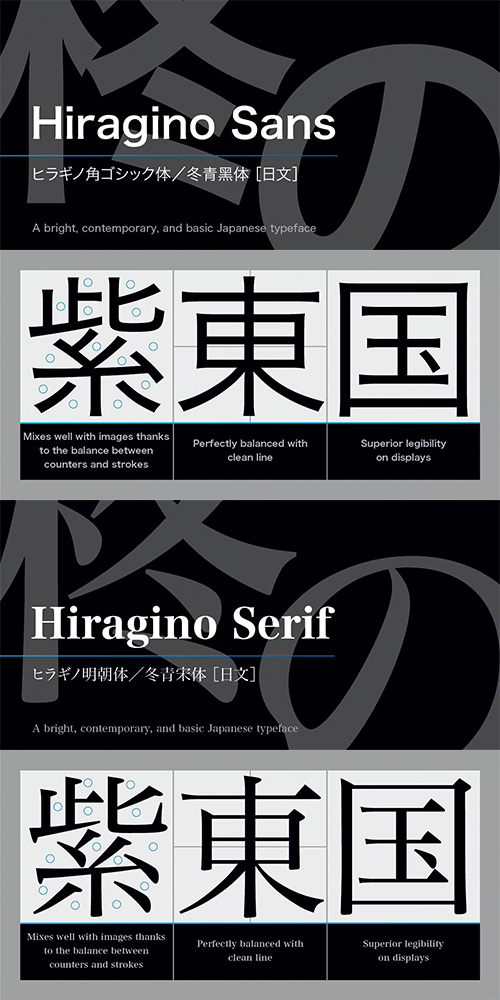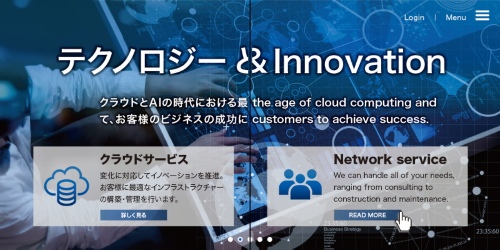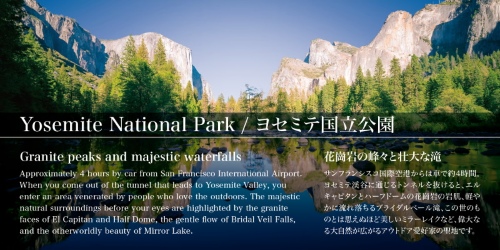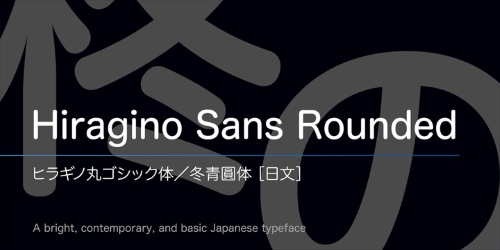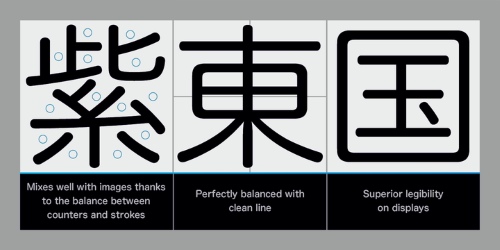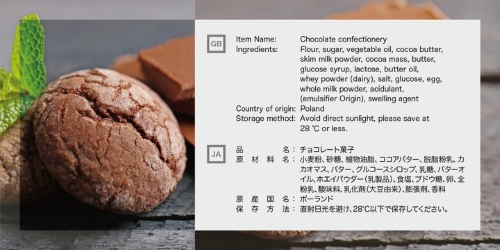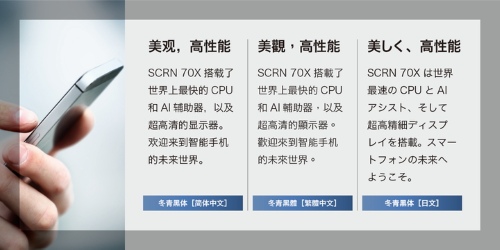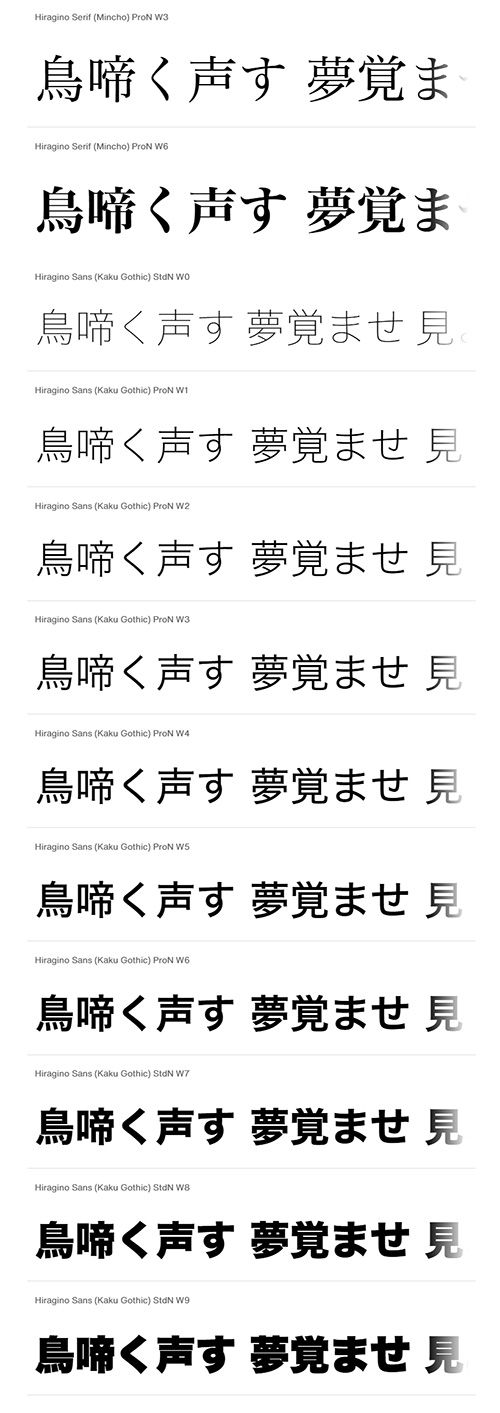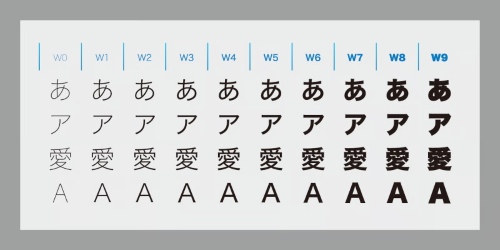
Hiragino Family Collection
Sans & Serif 17 Styles
- Mindful that Hiragino Sans (Kaku Gothic) would be used in conjunction with Hiragino Serif (Mincho), SCREEN developed a font that anticipated today’s world where most people do their reading on displays and yet still has an orthodox letterform that does not blur when printed on paper. In short, our goal with this font was to create a new concept that responds to the demands of today’s times. This font offers weight variations from W0 to W9 and is extremely versatile. This makes it well-suited to all visual expression media including paper, metallic textures, resins, cloth, television, movies, broadcasting, websites, and electronic displays. One of the design’s strongpoints is that it elides serif on the right side of each stroke, thus delivering more spacious counters and a comfortable appearance. Thanks to this, the typeface not only delivers a contemporary, lively impression same as Latin sans serif typefaces, but also heightens the natural continuity and readability of text whether it is set vertically or horizontally. As a result, it makes it possible to bring a strong appealing power to text. Without a doubt, this is typeface that above else embodies the role of Sans Serif.
- Hiragino Serif (Mincho) is a font adapted for the digital age. It was designed to permit finely detailed tuning that allows the sizes of both kanji and kana to be adjusted for greatest visibility. It also broadly satisfies the needs of modern graphic design in advertising, posters, pamphlets, magazines, and other such uses. The font makes the counters comfortably wide while gracefully raising the text's center of balance, ensuring that the typeset characters will be smooth and well-defined. It gives each line a modern impression thanks to a judicious balance of light and shade and draws out a vivid readability that makes it possible to comfortable push forward with one’s reading. Latin alphabet and numbers have all been originally designed so that the weights of typeface and the flow of the baseline between Japanese and Latin characters are extremely consistent. Of particular note, vertically formatted text that mixes both Japanese and Latin characters can be beautifully rendered using only this typeface. Thanks to the use of authentic and sophisticated basic design , it creates a different atmosphere by combination of optional unique kana typefaces.